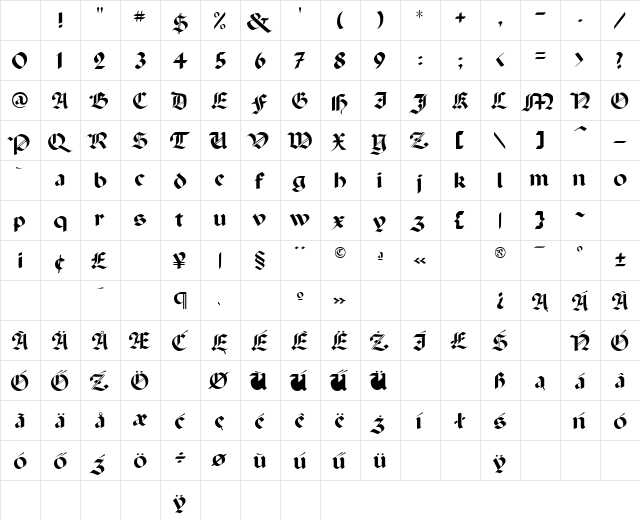
Complete Paganini-Lengyar Normal glyph index. Displaying only characters natively supported by Paganini-Lengyar Normal font.
Paganini-Lengyar is a composed and adaptable typeface that performs quietly and consistently across a wide range of design contexts.